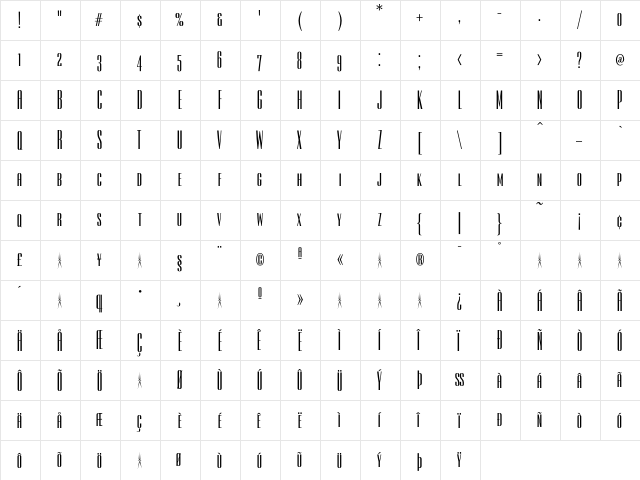
Empire BoldSmallCaps
Design Context for Empire Typeface
Empire takes a measured approach to typography — its balanced proportions and neutral character make it a reliable workhorse for both digital and print work. The heavy weight commands attention and anchors typographic hierarchies.